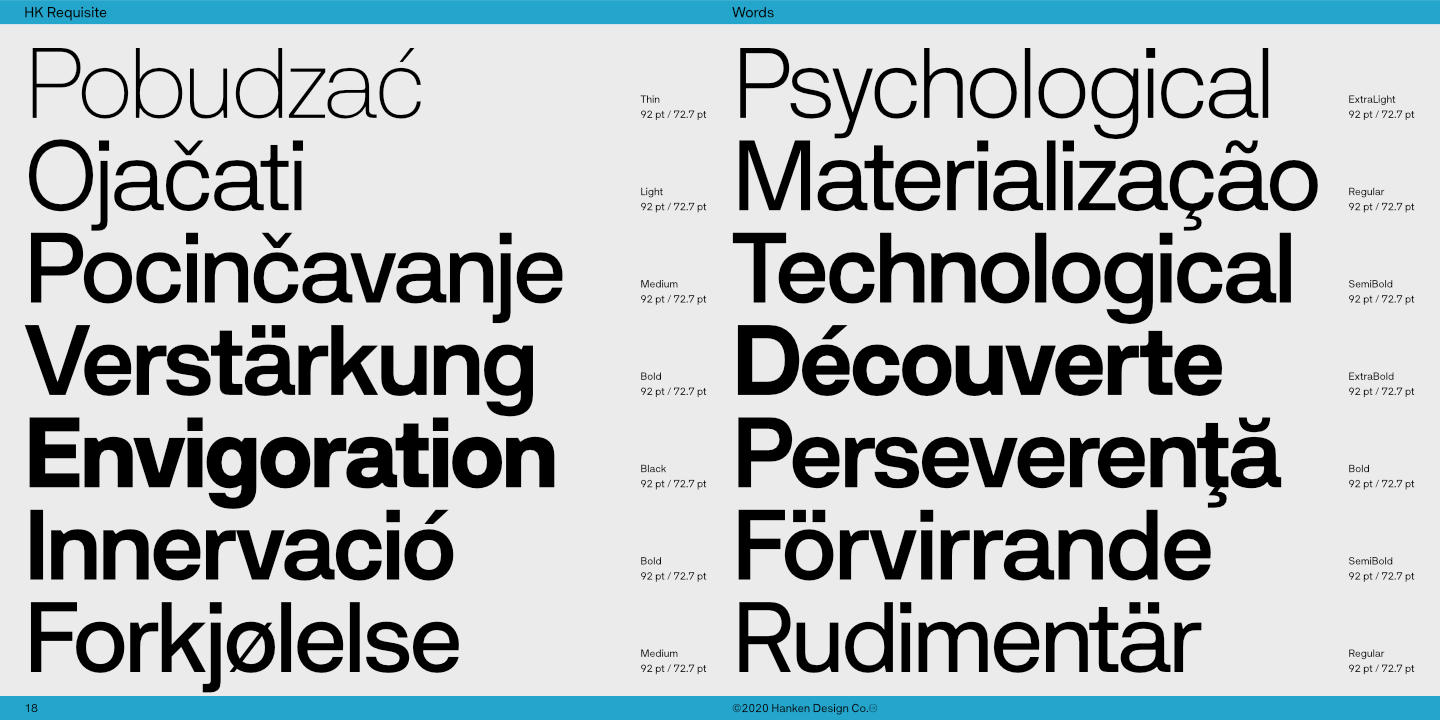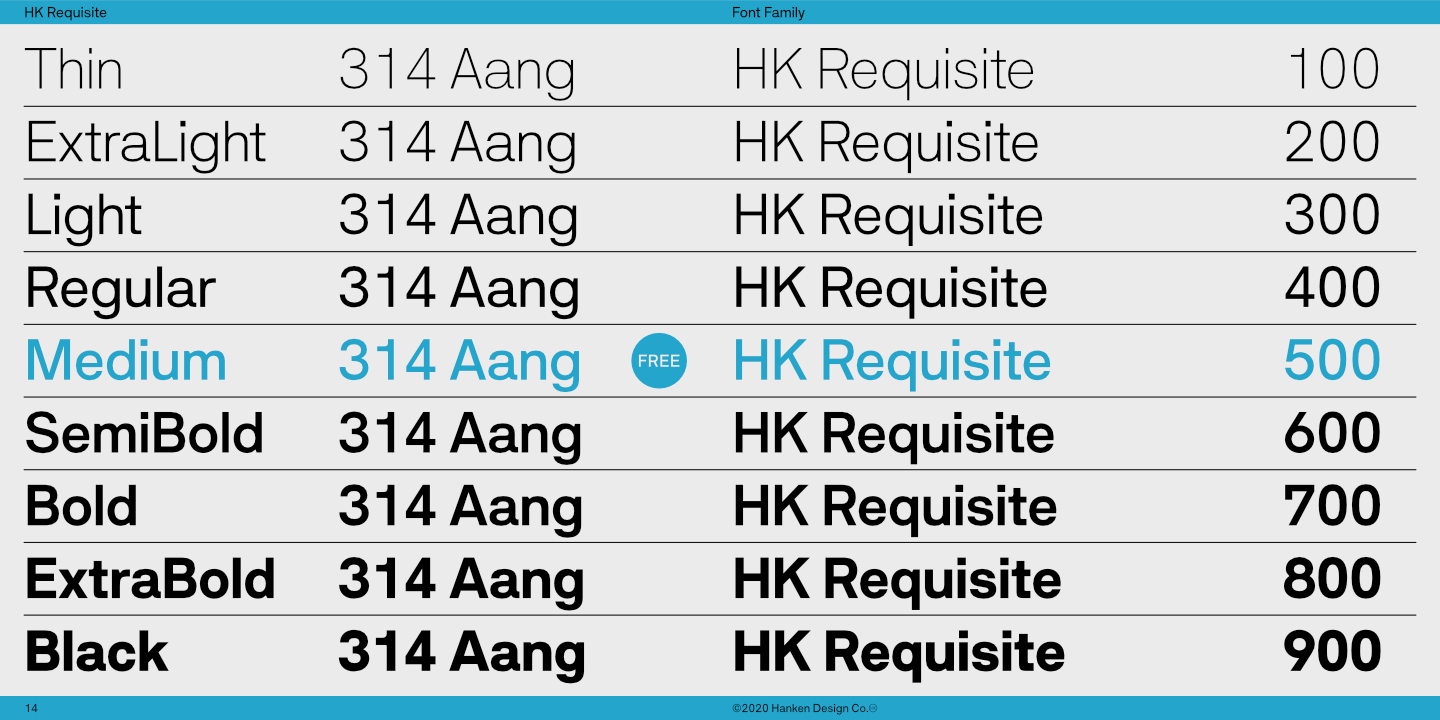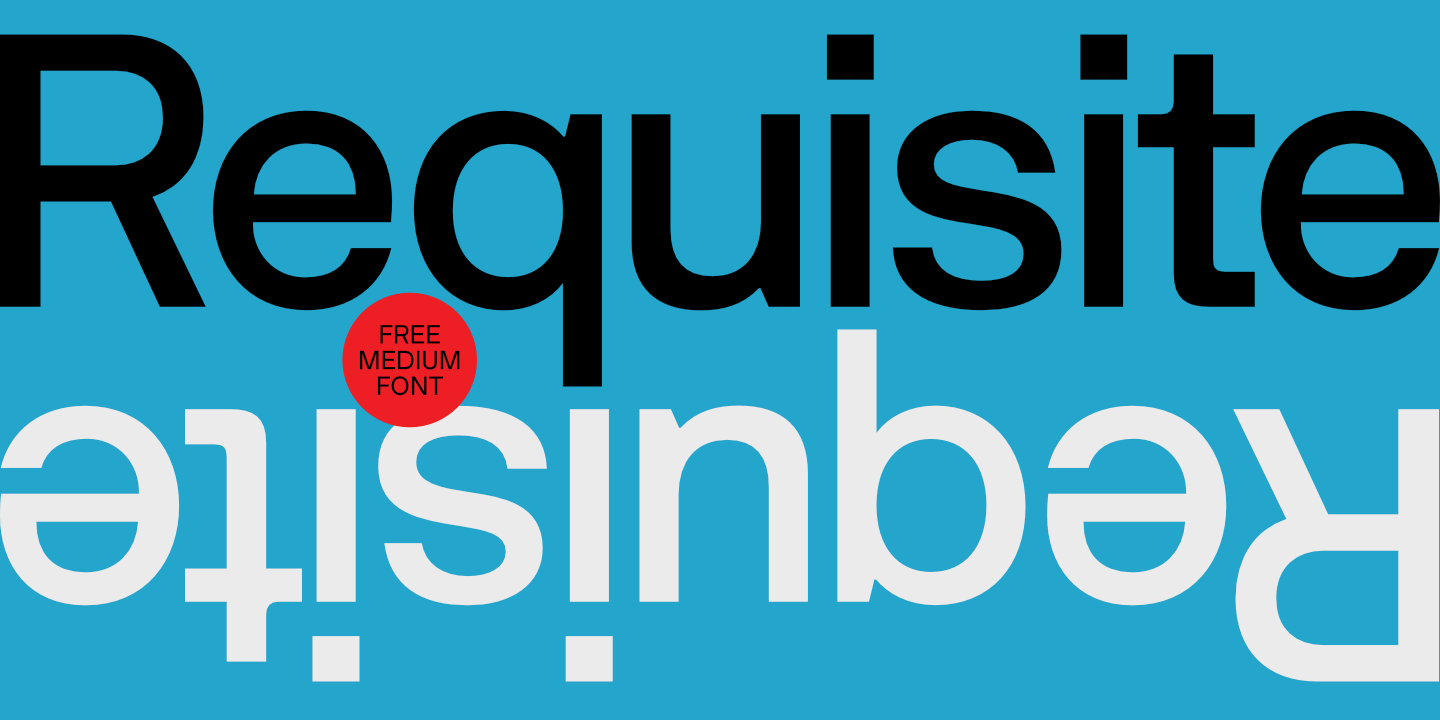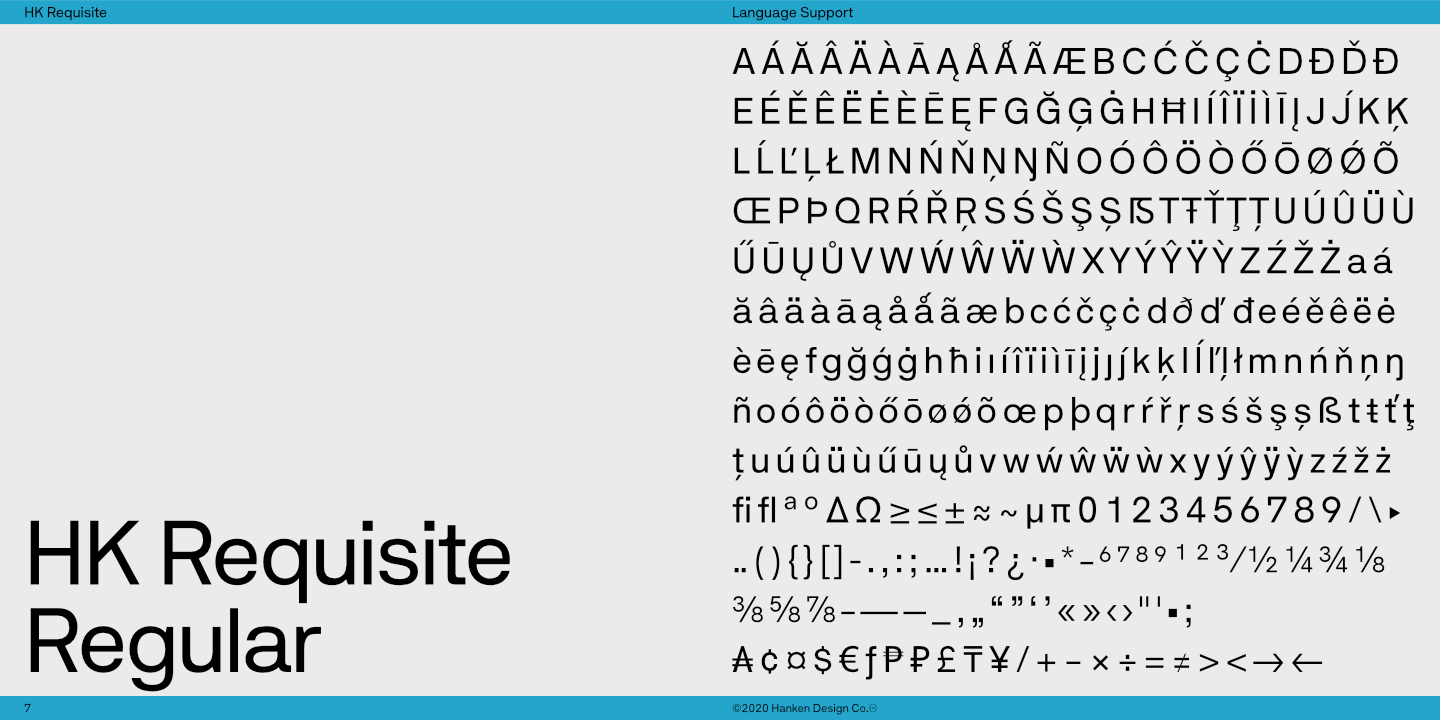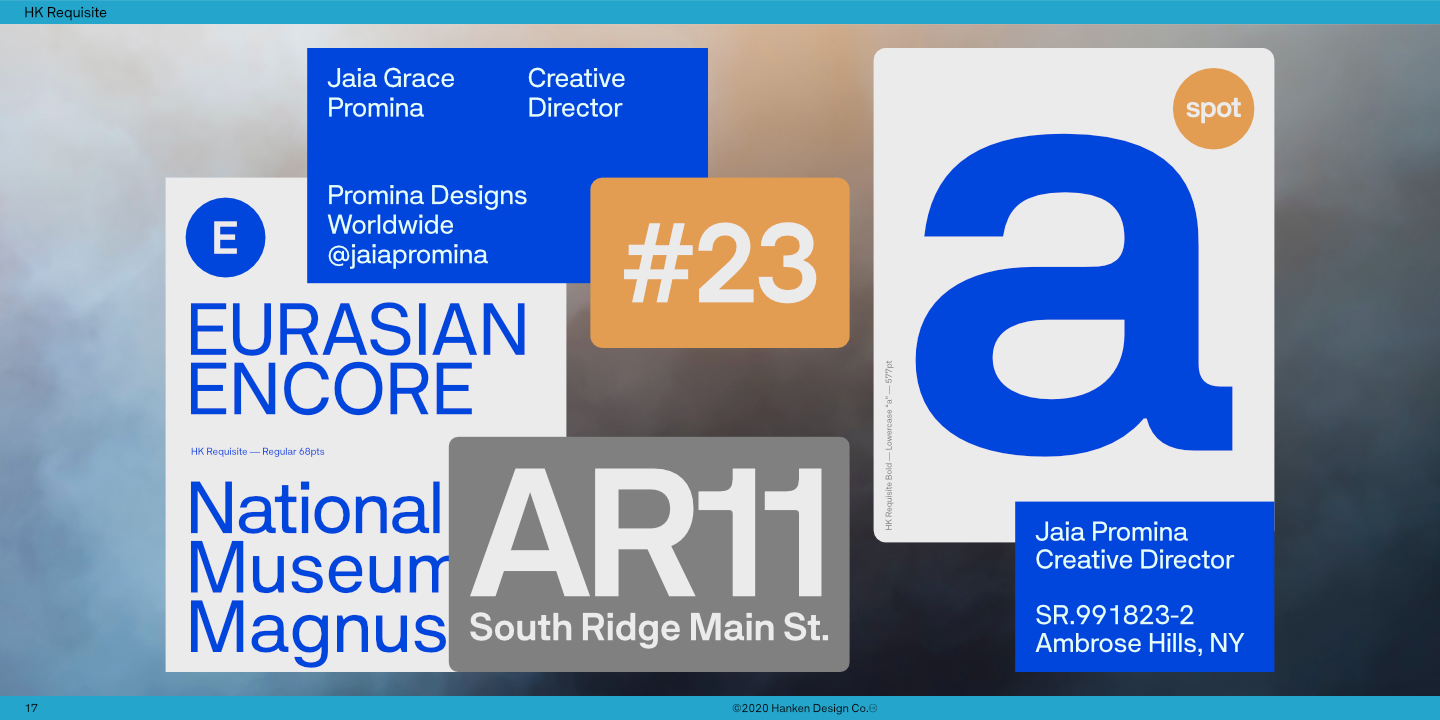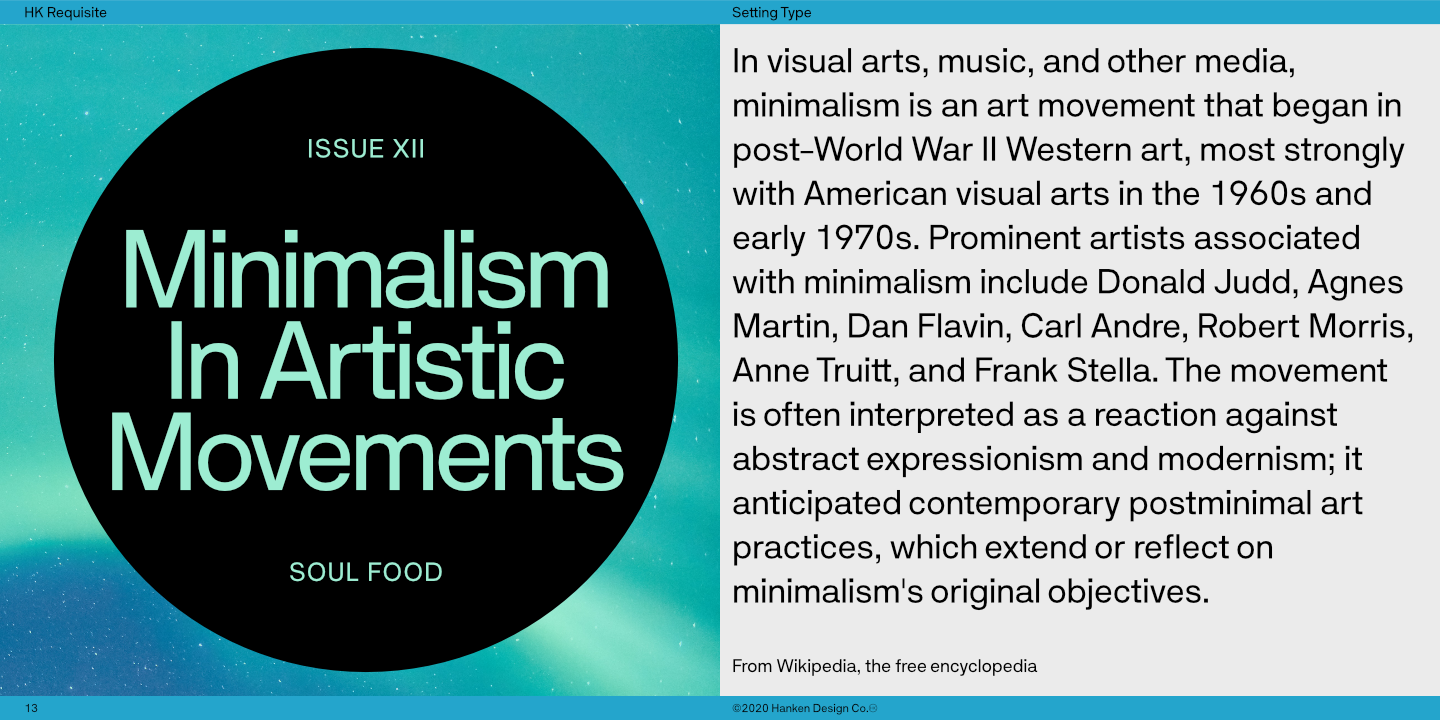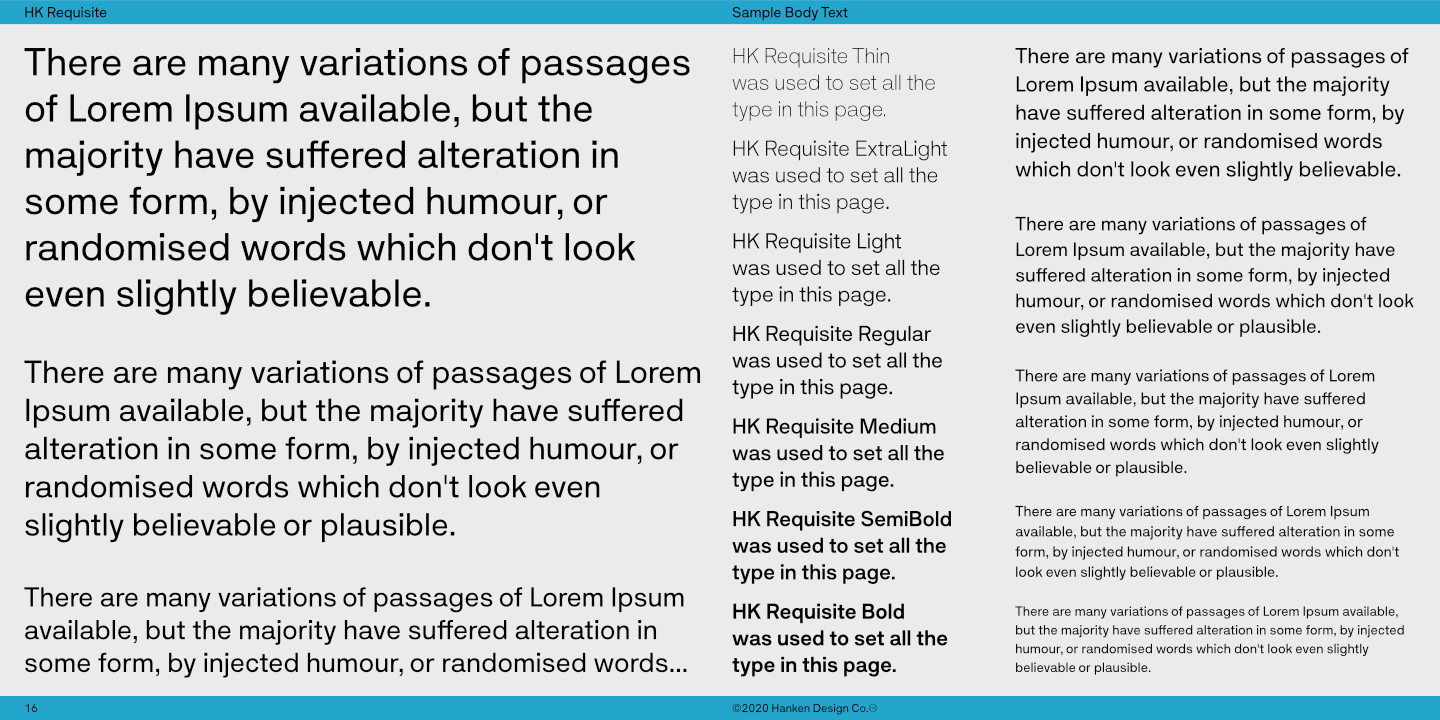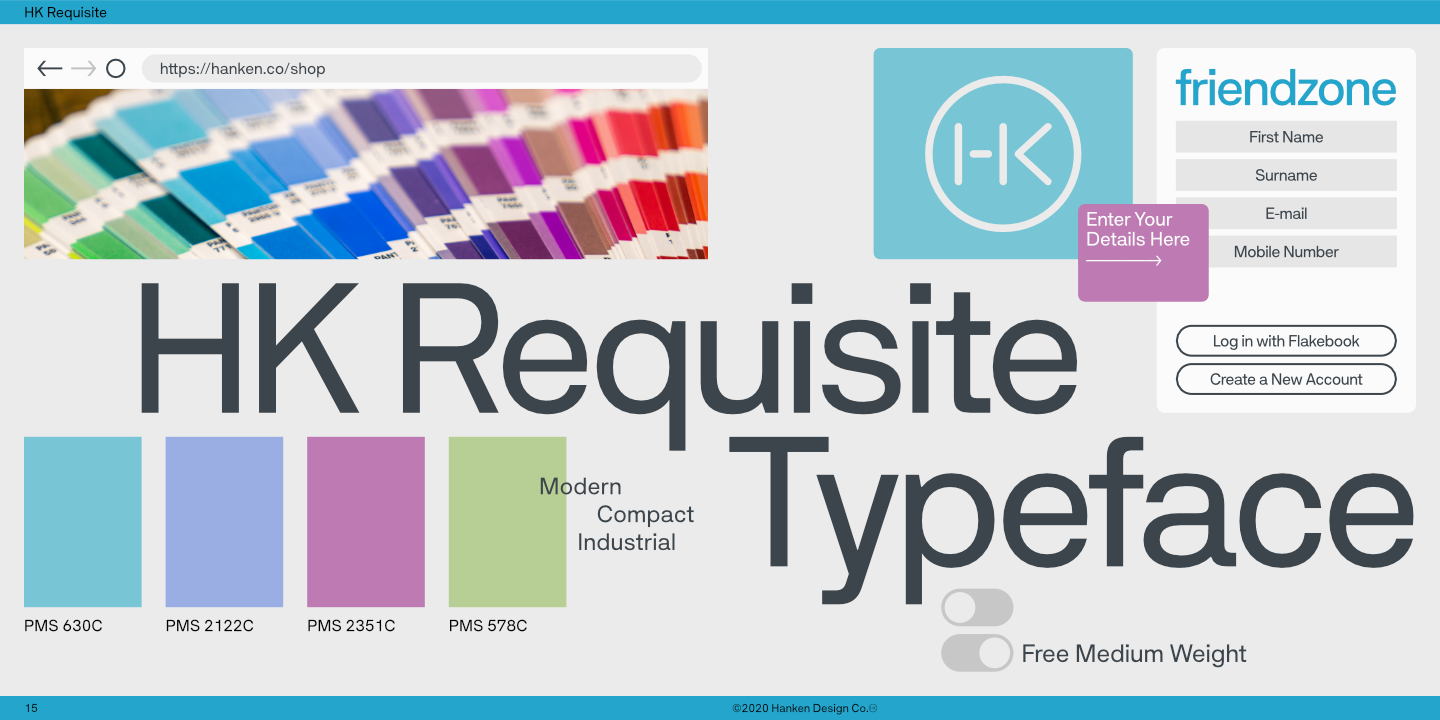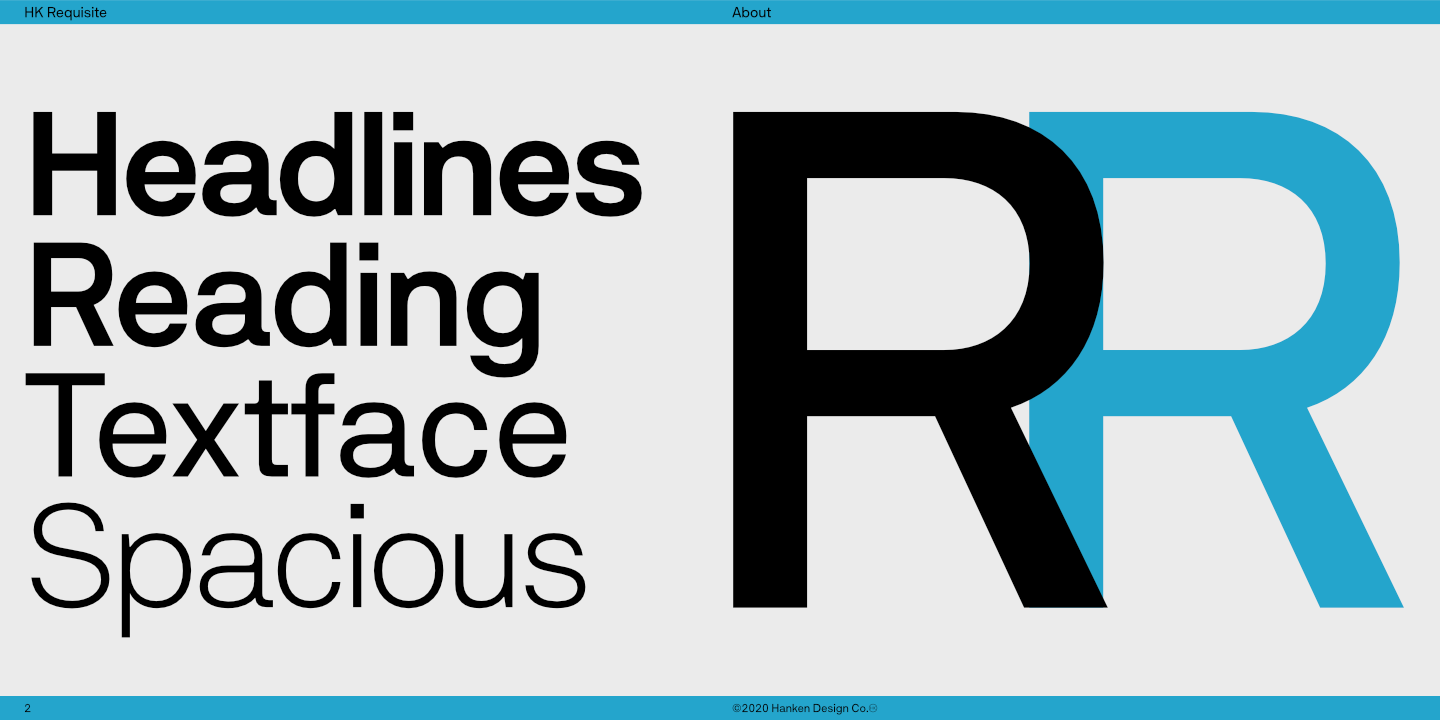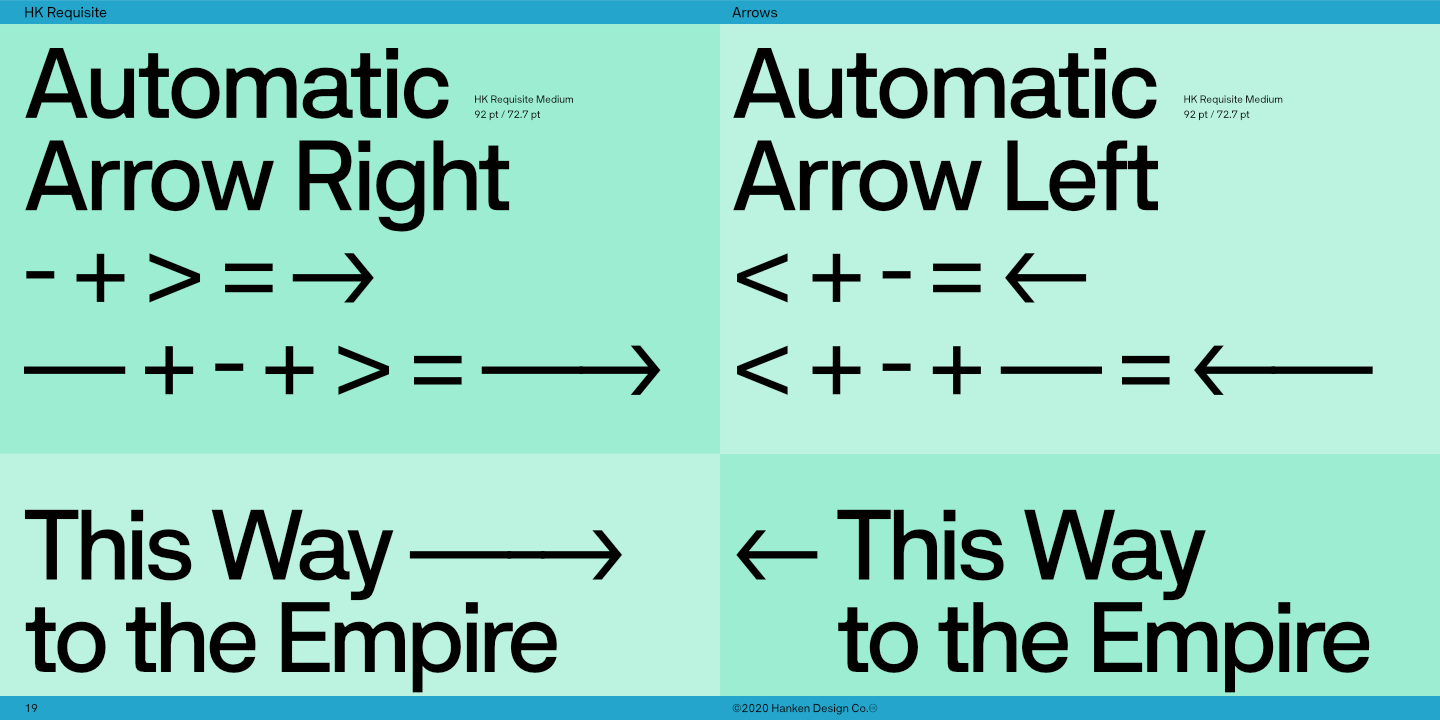
HK Requisite™ is a sans serif typeface inspired by the compactness of Neue Haas Grotesk and the strong character of Akzidenz Grotesk. The name came from the fact that fonts are elements that are necessary for the achievement of a specified end.
Glyphs: 400+ per style
Styles: 9
Class: Grotesque, Sans Serif
OpenType features:
Access All Alternates, Case-Sensitive Forms, Glyph Composition / Decomposition, Denominators, Fractions, Kerning, Standard Ligatures, Localized Forms, Mark Positioning, Mark to Mark Positioning, Numerators, Ordinals, Proportional Figures, Superscript, Tabular Figures.